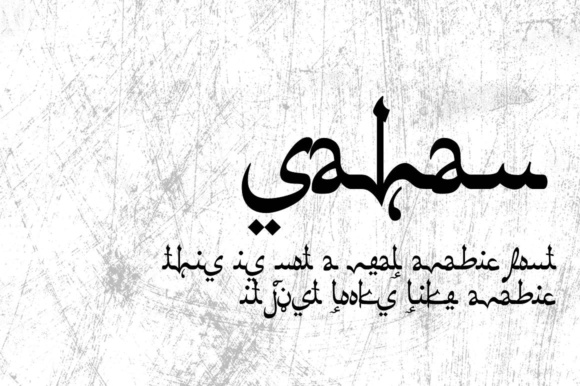
Prepare to be mesmerized by the enchanting Sahan Font, a decorative masterpiece that will transform your designs into captivating works of art. Inspired by the intricate beauty of Arabic script, this font effortlessly combines the elegance of the East with the modernity of the West.
Step into a world where creativity knows no bounds as you immerse yourself in the boundless possibilities offered by Sahan Font. Let your imagination soar as you craft stunning logos, eye-catching social media posts, and captivating branding materials that will leave an unforgettable impression.
This font is not just a collection of characters; it's a gateway to a realm of infinite possibilities. With its exquisite curves and intricate details, Sahan Font will elevate your designs to new heights of sophistication and originality.
Whether you're a seasoned designer or just starting your creative journey, Sahan Font is the perfect tool to unleash your imagination. Its user-friendly nature makes it accessible to all, empowering you to create designs that will captivate and inspire.
Join the growing community of designers who have embraced the magic of Sahan Font. Experience the joy of creating designs that resonate with your audience and leave a lasting impact.